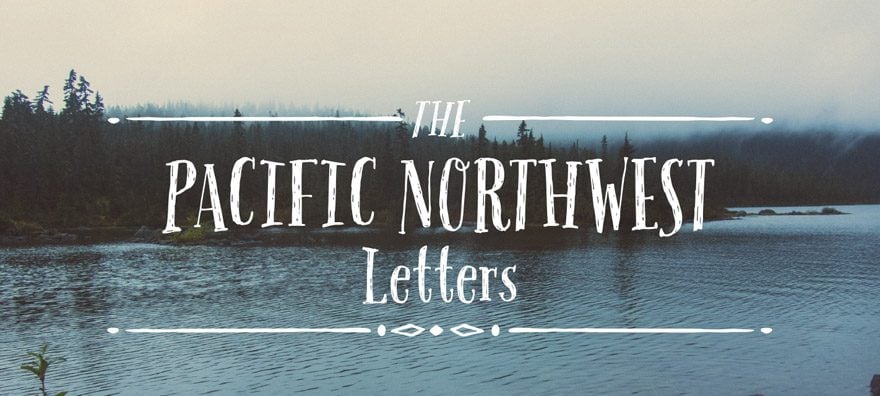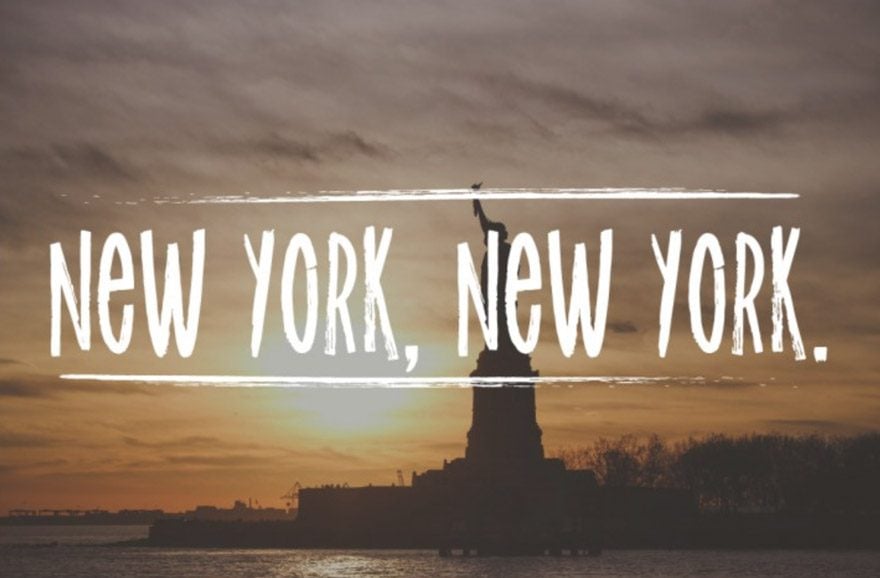
Hipster is a super weird and kind of silly term. People use it in different ways for different things, but in general, you can count on it referring to something that is somewhat folksy, simple, and hearkening to a simpler time that may or may not have ever existed in the first place. Oh, and beards. Always beards. Glorious, glorious beards.
So what makes a font a hipster font?
By reminding you of yesteryear, of times past, of working with your hands, and of living the Americana dream. And again, beards. It should definitely remind you of beards.
Fonts Hipstery Enough for the Hipster Club
Whether you want your site to have folksy charm or just have a bit of character that Google Fonts can’t quite give you, there are plenty of hand-made, retro, and down-right vintage fonts that will make your readers know that you are one cool-before-it-was-cool cat.
Free Hipster Fonts
Primitiva Slab
Our list is starting out well, with this font ticking most of the hipster checkmarks: hand-drawn, looks good on textured background, and hearkening backward in the name itself. Good stuff.
Steelworks
If you’re the kind of hipster who wants to keep it gritty, this font is right up your alley. Blue-collar and loving it, Steelworks comes with vectors and italics and the look of carefully careless brushstrokes. Plus the logo has a lightning bolt, and that’s just cool.
Aventura
Nothing says hipster like the great outdoors, I guess. Hipsters love adventure. This font embody that love of everything natural, wooded, and axe-like. I mean, there’s an axe in the logo. That’s pretty adventurous.
Sunday
You know what they say about Sunday? It’s a fun day! Hah! Font puns rock. Just like this font. It’s casual, but also has a touch of formality. Perfect for that idea blog you’ve got, or even an ecommerce site where you sell hand-stitched notebooks and screen-printed tees.
Che’s Bone
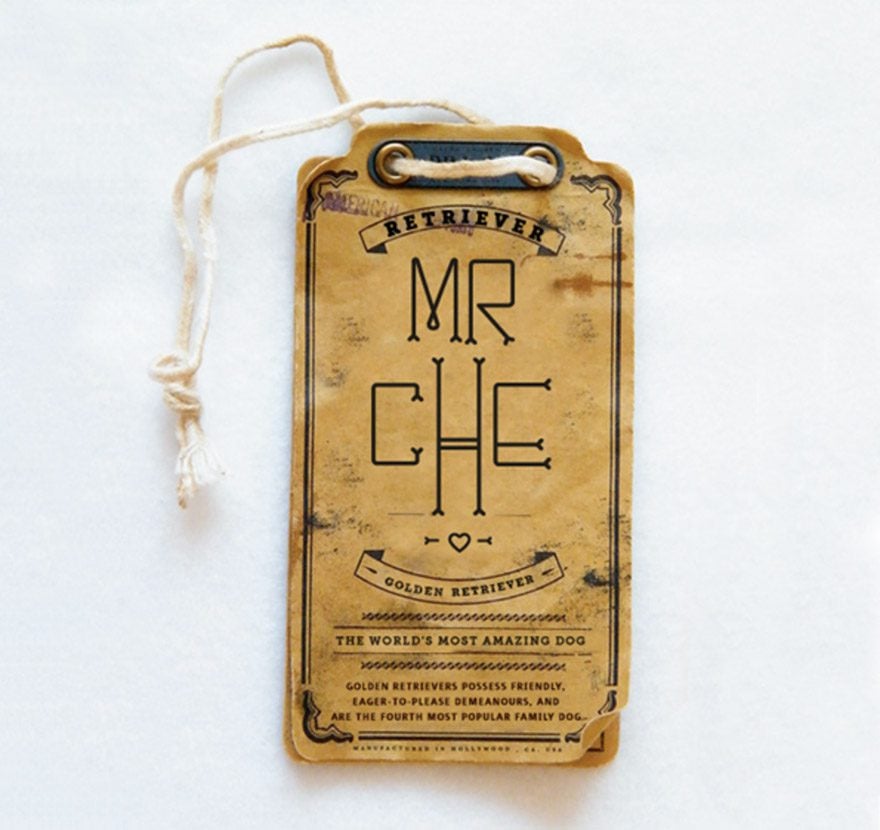
You gotta appreciate a font made for the designer’s dog. Nothing I write about this font will be better than the designer herself: “My dog loves bones. I experimented with this font for Che and other dog lovers. It has round edges and condensed skinny forms. The corner of each letter has a bone shape which is Che’s favorite part.”
CutePunk
We are used to punk, emo punk, cyberpunk, steampunk, but cutepunk? Fits right in, actually. Going against the establishment is what punk is all about, and this hipster typeface does just that. Not harsh, not too trendy, and not overly whimsical, go with this one and tell those stark sans fonts you’re not gonna take it anymore!
Ribbon
Quite the opposite of our last entry, we’ve got a typeface that’s pretty aptly named for exactly what it is. It looks like a ribbon. Whimsical and stylish, you can’t help but think about your childhood and the packaging of your favorite toys when you see it. At least I can’t.
Metropolis
Nothing says hipster like taking it back to one of the very first full-length science-fiction films. If you want people to know that you appreciate the glory days, let them see your anachronistic homage the future and the past. And robots. Everyone loves robots.
Sullivan
Straight out of the good old days themselves, Sullivan looks like the Americana dream. Crips and clean, the typeface will make your visitors feel comfortable and welcome. So come right in, pay what you want, and enjoy a soda-pop or root beer float.
Florence
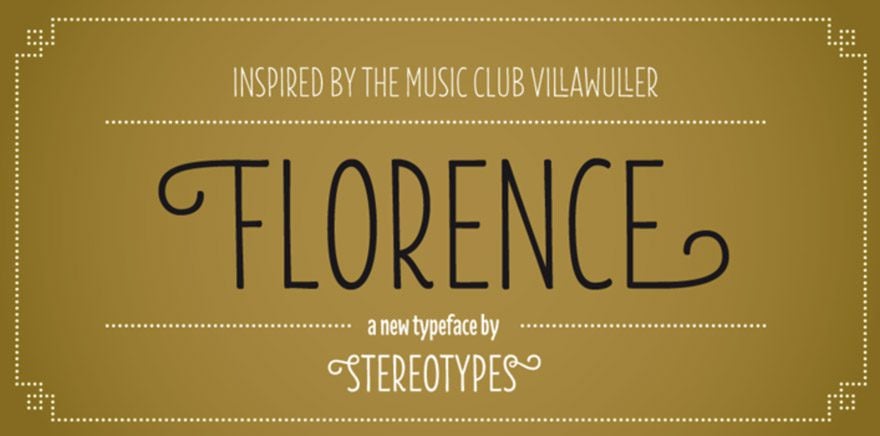
Okay, so I’ll be honest: I included this font because it made me giggle. It’s the name of my town, which has a surprisingly high hipster population that rotates between local coffee shops, co-working spaces, and farmers markets. I wish I were kidding. Outside of my personal inside jokes, Florence is a downright pretty font that will add a vintage, classy feel to any site you slap it on. Especially if you run a coffee shop, co-working space, or farmers market.
Quarz 974 Light
I just love the name of this font. As much as hipsters love triangles. I didn’t know that was a thing until recently, but the more I’ve read, a lot of the hipsteriest hipster design combines stark geometric patterns with natural landscapes and photos. Not surprisingly, it’s absolutely gorgeous and has become one of my favorite styles personally. And this font is free and perfect to make that odd juxtaposition you may not have thought of before now. You’re welcome.
Regina Black
Again, I’m just gonna let the font’s website speak for itself: “Regina Black has heavy letterforms that are influenced in equal parts by the elegant design from the early 1900’s and the chunky, friendly typefaces popularized in the 1970’s. Friendly, meet funky.”
Budmo
Budmo! Say it aloud. Budmo! It’s as fun to say as it is to look at. Reminiscent of carnivals and fairs and brightly lit marquees, if you want to draw attention to your site’s logo or headers, you will adore using this typeface. Plus, when a client asks you, “do you have any suggestions for a font that will get my audience’s attention?” You will get to shout “Budmo!” and get paid for it. That’s pretty awesome.
Thank you for the font collection. Are they available for commercial use? If so, for how long? I see many font/graphic bundle websites are changing their Terms of Service, and their fonts will no longer be available for commercial use. I do not want to start using a font that I will have to replace shortly. Please advise.